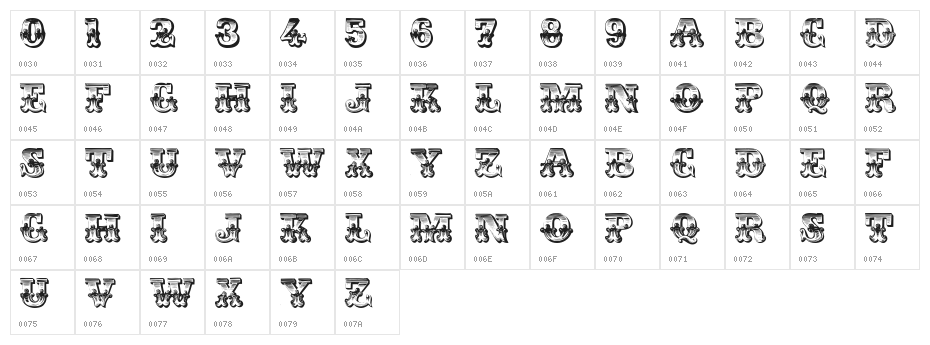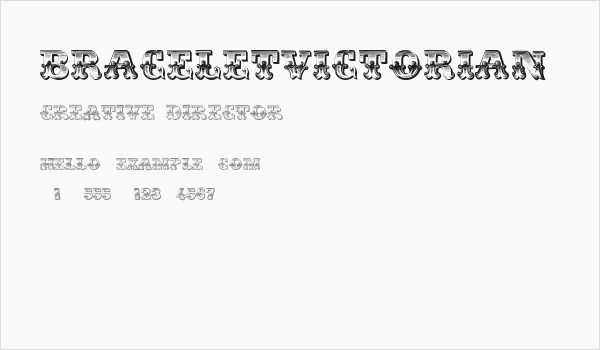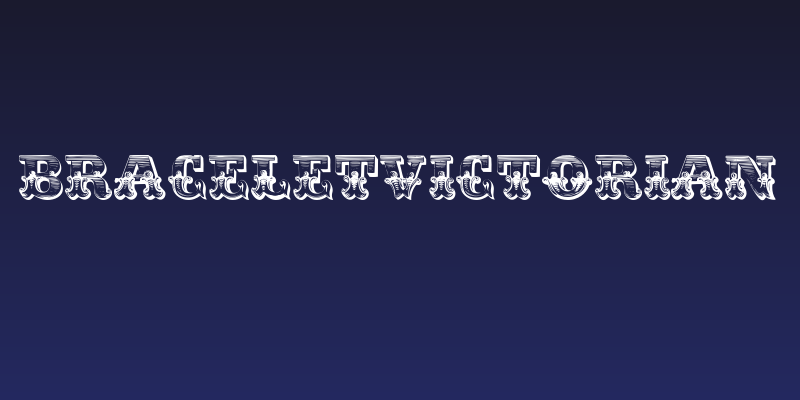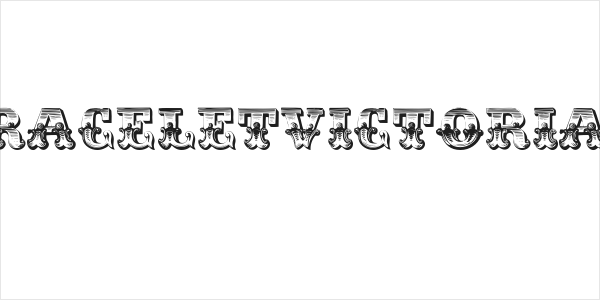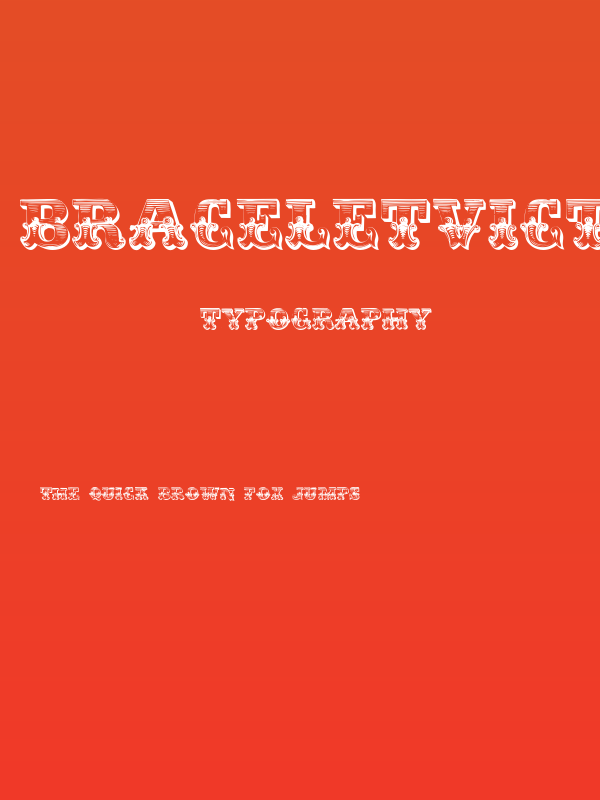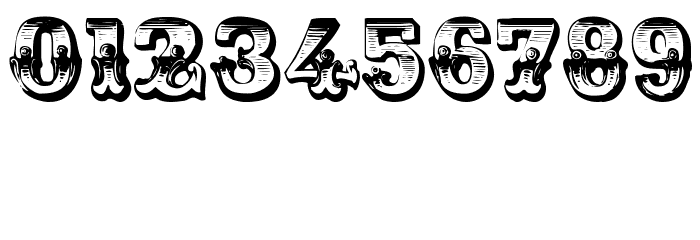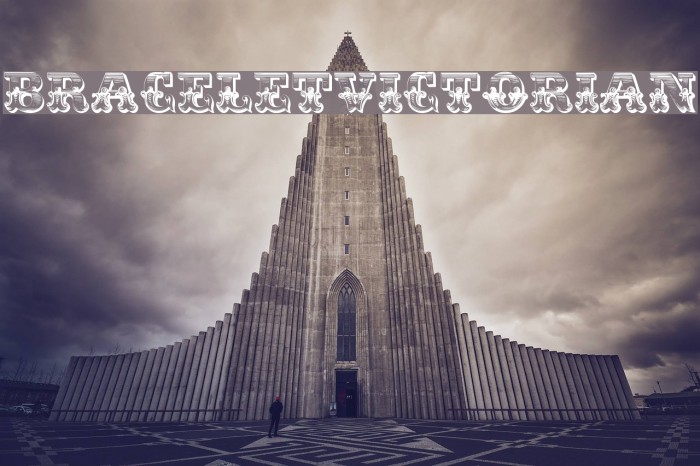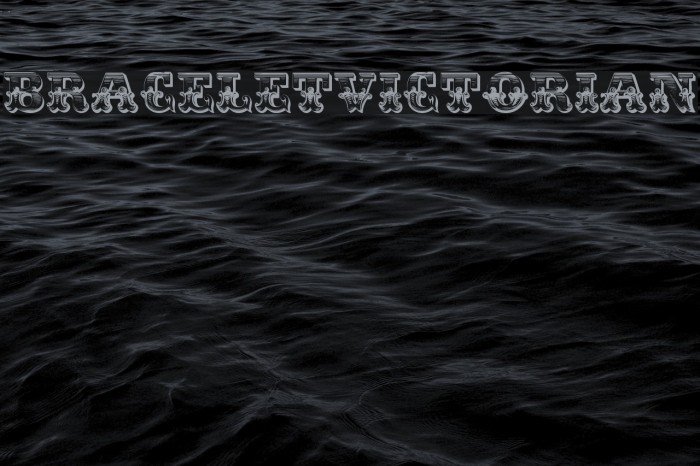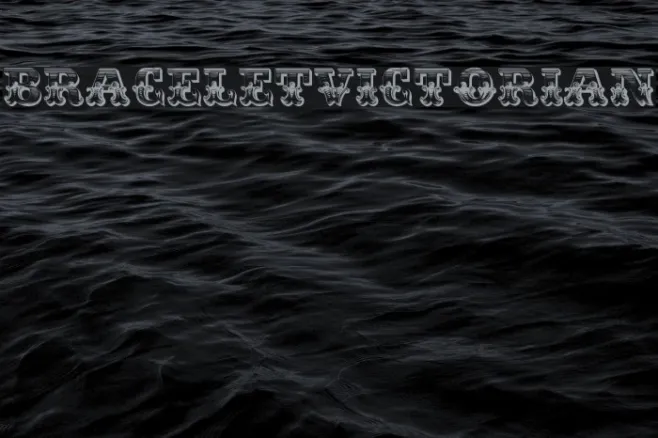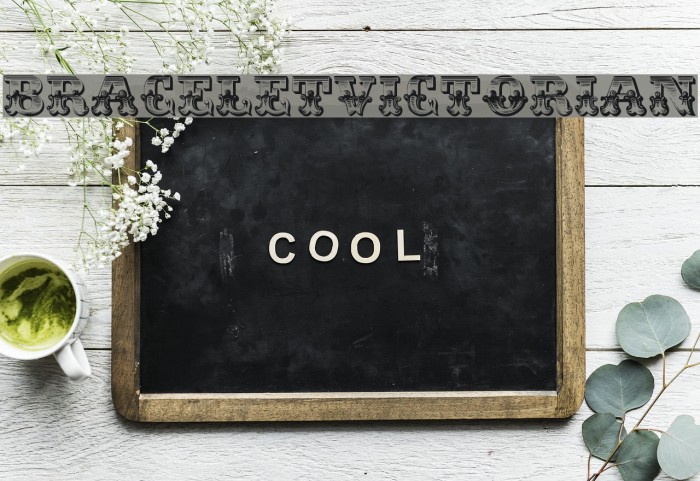
BraceletVictorian Font
BraceletVictorian Description
This font features an ornate and decorative style reminiscent of Victorian-era design. Each character is embellished with intricate flourishes and patterns, giving it a highly detailed and artistic appearance. The letters are bold and have a three-dimensional effect, with shadows and highlights that enhance their visual impact. The overall look is both vintage and theatrical, making it suitable for projects that require a touch of elegance and historical charm. The numbers and special characters maintain the same level of detail, ensuring consistency across all elements.
| Proposed Projects | Ideal for vintage-themed posters, theatrical event invitations, historical book covers, and decorative signage. |